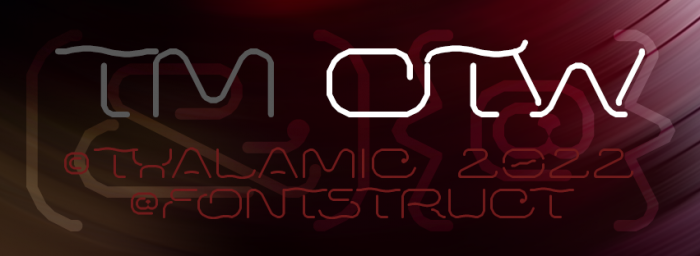
• This font is a result of the thinking "The punctuation looks niiice. Should I do a font to match these?" on tm wto font.
The letters were allowed to be as wide as they wanted. A lot (when it became apparent that many versions will be necessary to get the right shape) of the earlier attempts at forming the letters are left in the font.
Cool forms and great technique as usual mate, but I guess as in 'font' I dont realy feel this one. I cant put it to words though. I tent to say that it is the jagged nature of the polygonal composition, but I have enjoyed far more itchy fonts in the past. So that cant be truly what I'm experiencing..
Still I cant get around the fact that your originality is stiking every single font !
@Sed4tives: I agree. Something is not quite right. Maybe slimmer lowercase would help the words be more of a cohesive whole. Oh hey, maybe the wrong thing is that it is not holistic.
Alternates